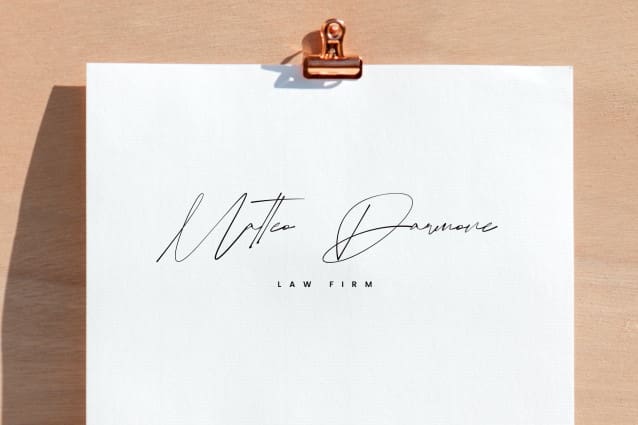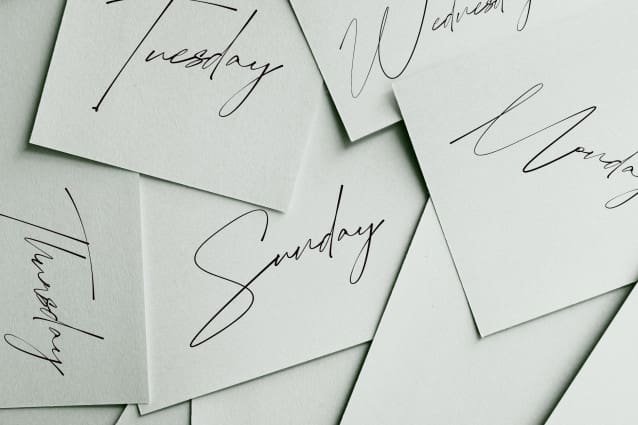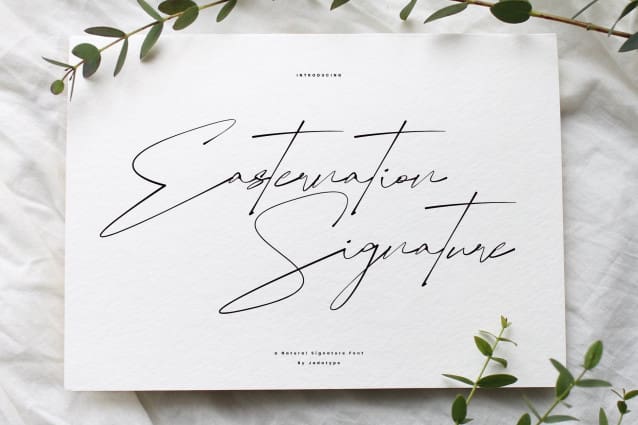
Easternation Signature Font
Easternation Signature Font is a sophisticated and stylish typeface with a personal touch. Its fluid strokes and natural writing style create a warm and inviting atmosphere, perfect for personal branding, wedding invitations, and heartfelt messages.